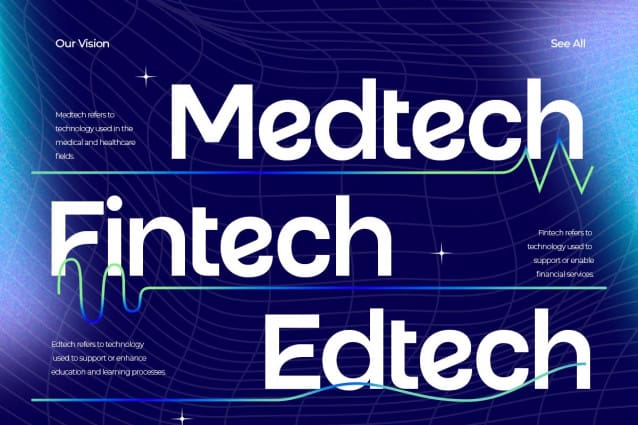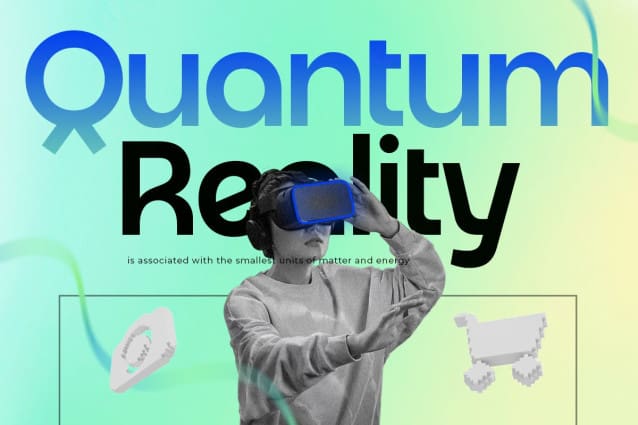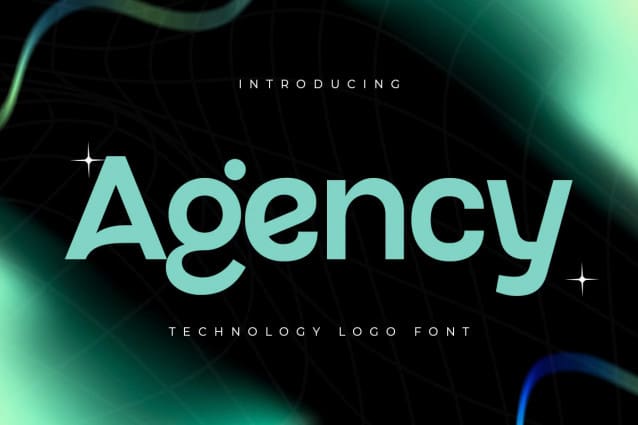
Agency Technology Logo Font
Agency Technology Logo Font is the ultimate font for combining technology and branding into a sleek, modern logo. Crafted to meet the demands of contemporary business and tech industries, it offers a clean and professional look that stands out in any application. Ideal for logos, websites, and branding materials, Agency provides a distinctive, futuristic edge.
Inspired by cutting-edge technology and high-impact branding, Agency delivers a unique style that makes your design memorable. Its versatile features make it suitable for various professional uses, ensuring that your brand conveys both innovation and reliability.
Whether you’re working on a tech startup or a corporate rebranding, Agency supports your vision with its comprehensive character set and OpenType features. It’s designed to enhance your projects with a strong, cohesive identity.